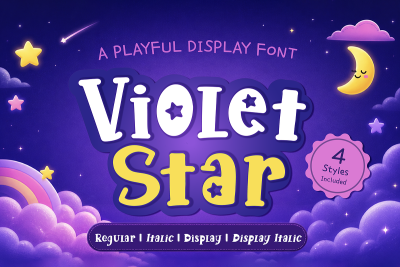
Violet Star - Playful Font
Violet Star - Playful combines clean construction with expressive detail, making it a dependable asset in any type toolkit.